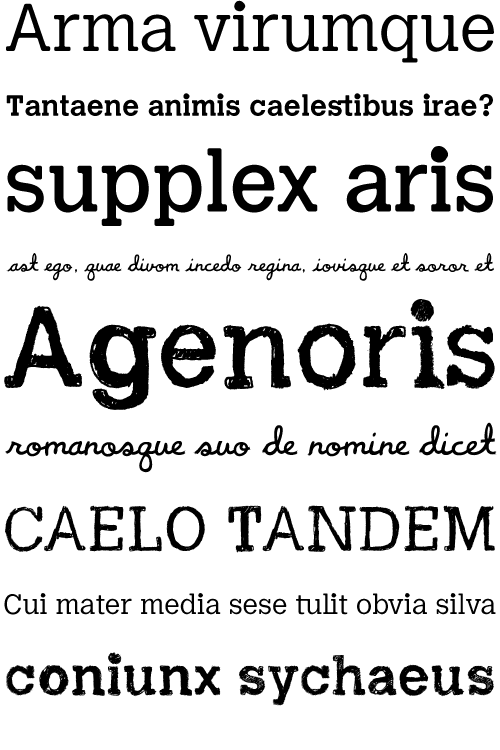
77Kids
MADType created these custom typefaces for the new children's brand, 77kids. I worked closely with designer Justin Thomas Kay on the scratchy versions of the fonts which were to be used for the logotype.
Year Designed:
2007-2008
Weights:
Light, Regular, Bold, Scratchy Light, Scratchy Regular, Scratchy Bold, Script